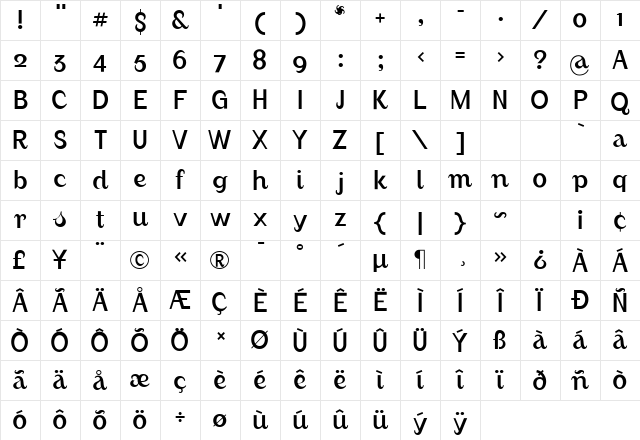
August Regular
Foundry: Copr. Gareth Hague
August Family
August Regular
Complete August Regular glyph index. Displaying only characters natively supported by August Regular font.
Design Context for August
August is a composed and adaptable typeface that performs quietly and consistently across a wide range of design contexts.
Who designed the August Regular font?